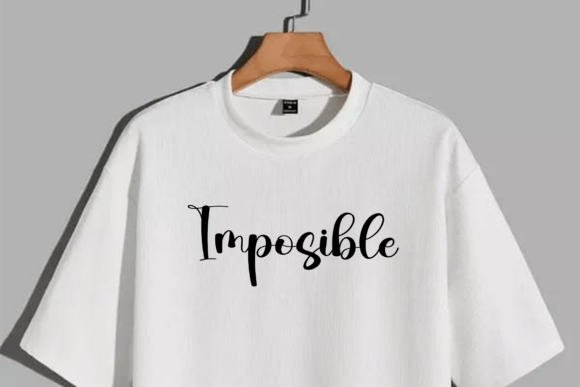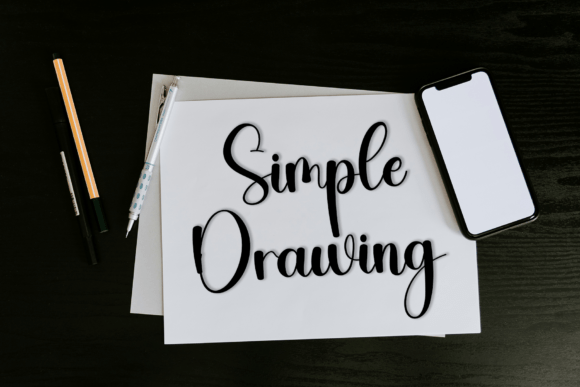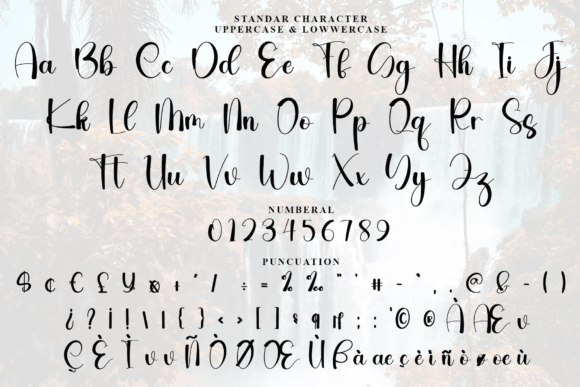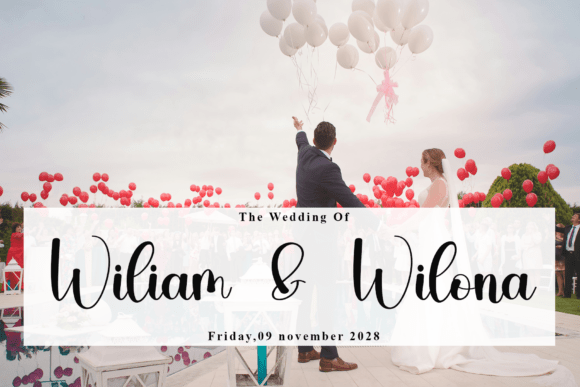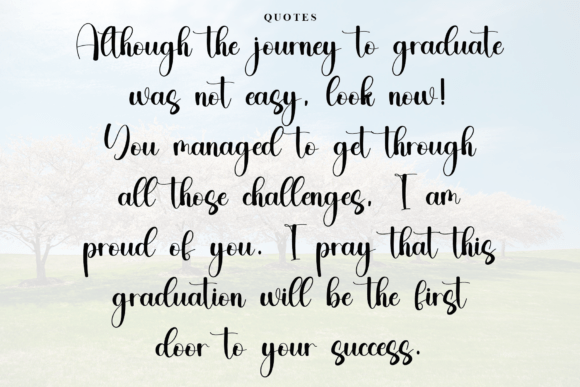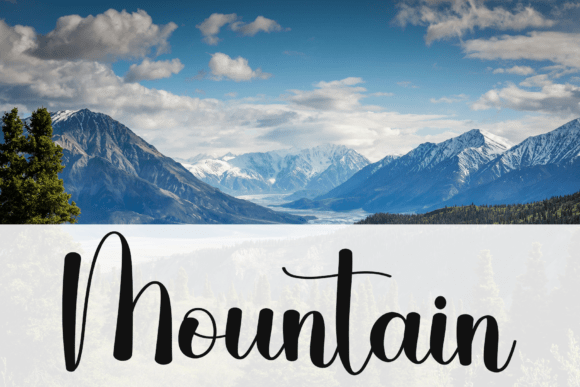
Adding a Touch of Joy to Your Designs
Remember the thrill of receiving your first design brief from a client, and the excitement of bringing their vision to life? For many designers, there’s no greater satisfaction than seeing a project come together and knowing that it will make a lasting impression on its audience. One key element that can elevate a design from good to great is the right font choice. And that’s where the Happy Graduation Font comes in – a sweet and cursive handwritten font that’s sure to add a touch of joy to any project.
Whether you’re working on a branding project, creating a wedding invitation, or designing a greeting card, the Happy Graduation Font is the perfect addition to your toolkit. Its gentle, elegant style will bring a sense of romance and sophistication to your designs, making it a valuable asset for any designer looking to add a touch of whimsy and personality to their work.
Key Features of Happy Graduation Font
- Font Styles: The font comes in a variety of styles, including bold, italic, and regular, to cater to different design needs.
- Unique Characteristics: The font features a playful, cursive design with celebratory elements, making it perfect for graduation announcements, certificates, and other special occasions.
Designer Review: “Happy Graduation Font”
First off, I think “Happy Graduation Font” does a great job at capturing the celebratory vibe of a graduation ceremony. The ✨ bold, playful strokes and vibrant colors really make it stand out. The font’s ability to convey excitement and joy is something that I appreciate. It’s perfect for announcements, posters, or social media posts celebrating a graduate’s achievement.
One of the things I like about this font is its versatility. You can use it in a variety of contexts, from formal to informal, and it will still look great. Additionally, the font’s customizable options, such as color and size, make it easy to tailor to your specific needs.
What Could Be Improved
While “Happy Graduation Font” has a lot going for it, I do think there are some limitations. ⚠️ For one, the font can feel a bit overwhelming at larger sizes. It’s great for smaller text, but when used in bigger formats, it can be hard to read. Another issue is that the font’s boldness can make it feel a bit too loud, which might not be suitable for all designs.
Overall, I think “Happy Graduation Font” is a great choice for anyone looking to add a celebratory touch to their designs. While it has some limitations, its playful personality and versatility make it a valuable addition to any font collection.
- ✨ Playful, celebratory vibe
- Customizable options (color, size)
- Versatile for formal and informal designs
- Suitable for announcements, posters, social media
Use the Happy Graduation Font to create eye-catching invitations, certificates, and social media posts for graduations, parties, and other celebrations.
Experiment with different font sizes and styles to create a unique and personalized design.